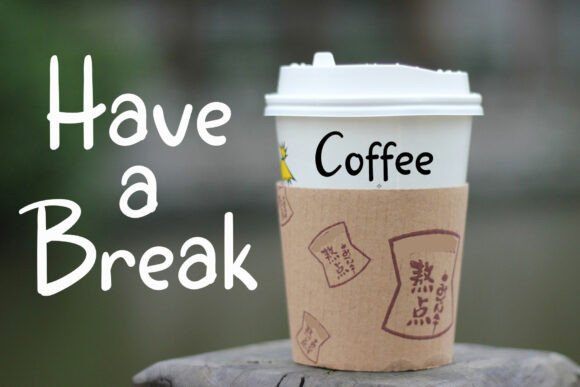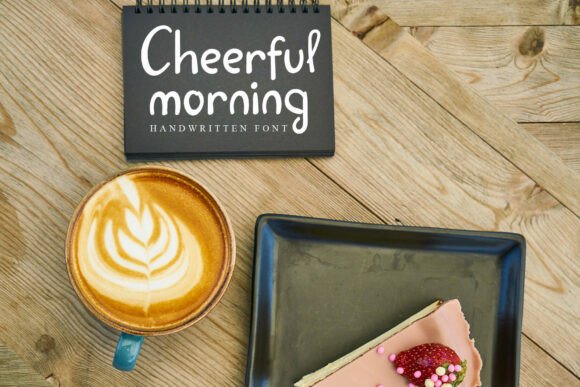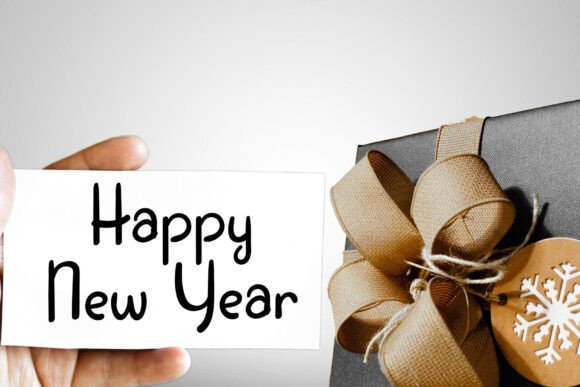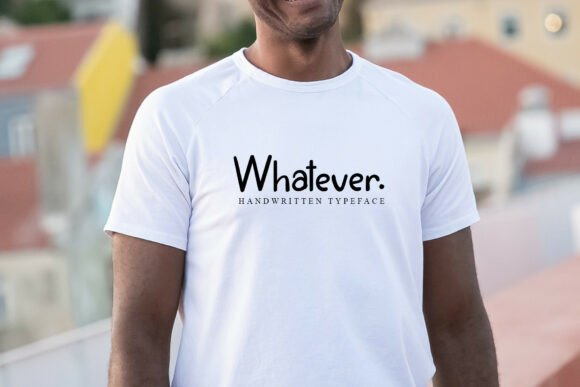
Ditha Font: Elevate Your Designs with Elegance and Sophistication
In the world of typography, fonts play a crucial role in conveying the tone and personality of a design. Whether you’re a graphic designer, a crafty DIY enthusiast, or a student working on a project, the right font can make all the difference. This is where Ditha Font comes in – a unique and elegant font designed to add a touch of sophistication to your work.
What Makes Ditha Font Special?
Ditha Font is crafted with a professional hand touch, giving it a distinctive and refined look. This font is not just a collection of letters and symbols; it’s a carefully designed tool that can elevate your projects to the next level. With Ditha Font, you can add a touch of elegance to your designs, making them stand out from the crowd.
Perfect for Various Projects
One of the best things about Ditha Font is its versatility. This font is suitable for a wide range of projects, including:
- Wedding invitation cards: Add a touch of romance and sophistication to your wedding invites with Ditha Font.
- Birthday cards: Make your birthday greetings more special with this elegant font.
- Party invitations: Whether it’s a baby shower, a graduation party, or a holiday gathering, Ditha Font is the perfect choice.
- School assignments: Add some creativity to your school projects with Ditha Font, making them more visually appealing.
- Creative projects: Use Ditha Font to add a touch of elegance to your creative projects, such as posters, flyers, and brochures.
Why Choose Ditha Font?
There are several reasons why Ditha Font stands out from other fonts:
- Unique and elegant design: Ditha Font has a distinctive look that will set your designs apart.
- Professional hand touch: The font is crafted with care, giving it a refined and sophisticated feel.
- Versatile: Ditha Font can be used for a wide range of projects, from formal to informal.
Tips for Using Ditha Font
To get the most out of Ditha Font, here are some tips:
- Experiment with font sizes: Try different font sizes to see how Ditha Font looks in various contexts.
- Pair with other fonts: Combine Ditha Font with other fonts to create a unique and interesting look.
- Use it for headings and titles: Ditha Font is perfect for headings and titles, adding a touch of elegance to your designs.
- Don’t be afraid to get creative: Use Ditha Font as a starting point and add your own creative twist to make your designs truly unique.
Ditha Font is a unique and elegant font that can elevate your designs to the next level. With its professional hand touch, versatility, and accessibility, it’s the perfect choice for designers, crafters, and students alike. Whether you’re working on a formal or informal project, Ditha Font is sure to add a touch of sophistication and elegance. So why wait? Download Ditha Font today and start creating stunning designs that will leave a lasting impression.